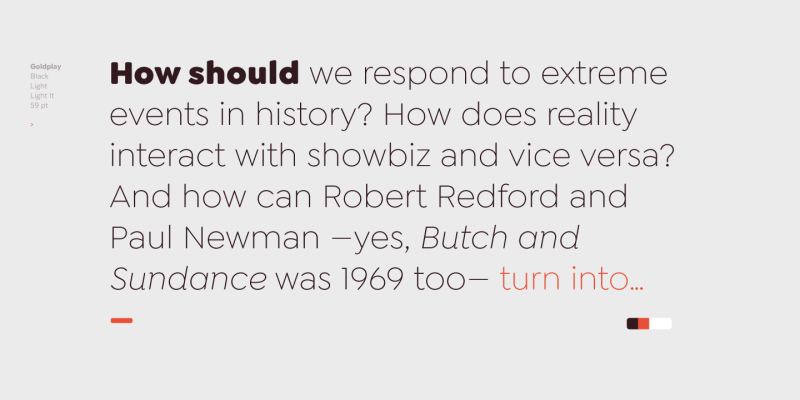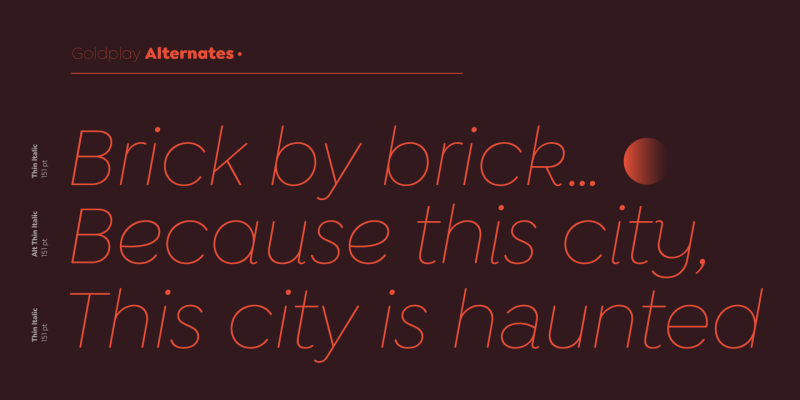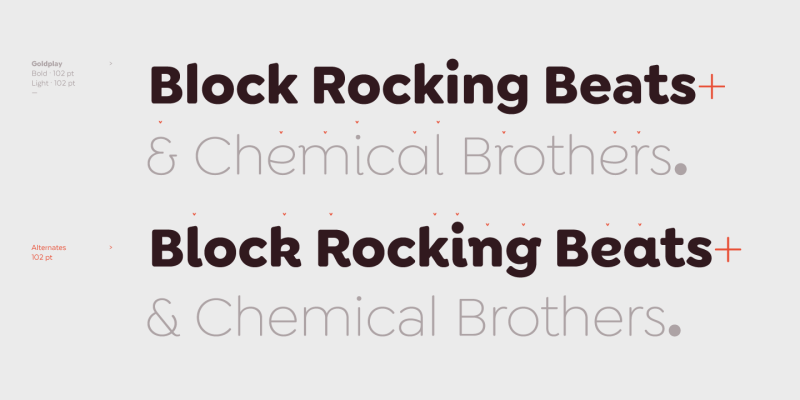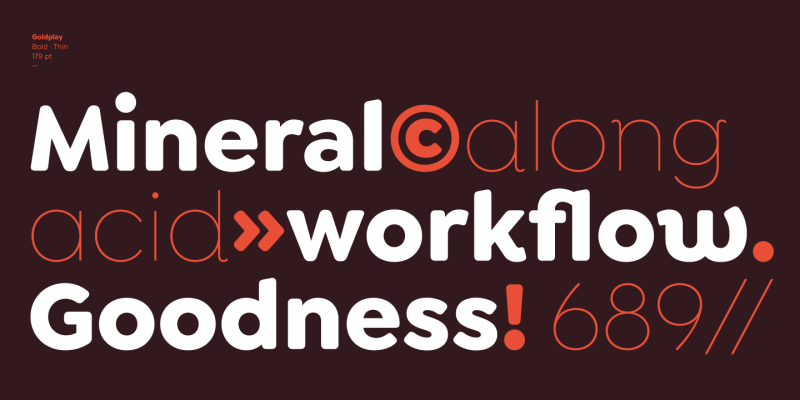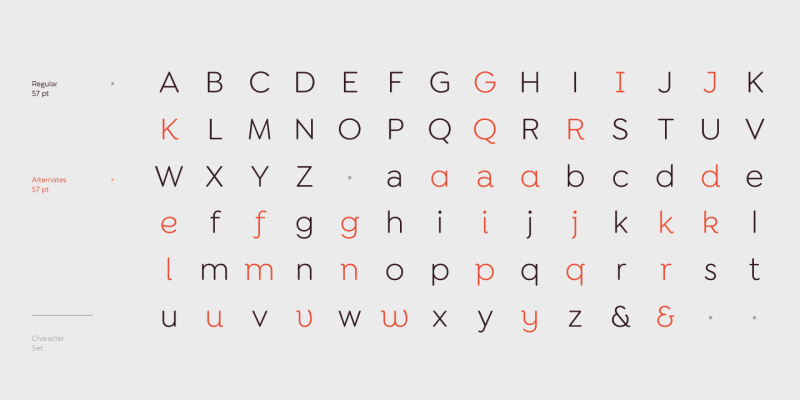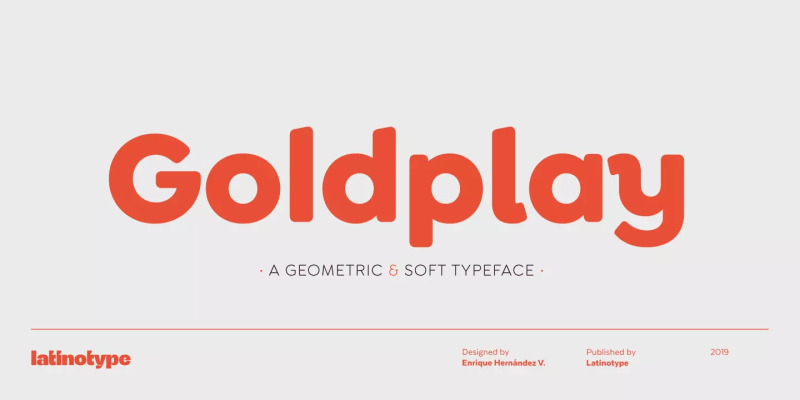
Goldplay Font Family
Goldplay is based on Isidora Sans design yet features rounded shapes. Its rounded, soft terminals give it a friendly and expressive look, and its modern and contemporary…
Character set · 540 glyphs
Goldplay is based on Isidora Sans design yet features rounded shapes. Its rounded, soft terminals give it a friendly and expressive look, and its modern and contemporary style as well as its classic proportions make it an excellent choice for headlines, logotypes, branding, books, magazines, motion graphics, and use on web and Tv. One of its key features is a large x-height which make it look elegant and classy.
Goldplay comes in 2 versions—each in 7 weights, from Thin to Black, and matching italics, resulting in a total of 28 fonts. The standard sans serif version—fresh, clean and contemporary—is a perfect choice for editorial and corporate design, headlines, books, magazines or any other piece of graphic design. The Alt semi-serif display version—more expressive and modern—is ideal for logotypes, branding, packaging, and use on web and Tv. Goldplay contains a set of 540 characters that support over 200 Latin-based languages.
Where Goldplay Font Family works best
Goldplay Font Family keeps its shape at 14 and 16 pixels, which is where interface text actually lives. Numbers and capitals stay distinguishable in tables.
Presentations are read at a distance; a clean sans with a strong bold is the safest hierarchy you can build in a hurry.
Simple letterforms survive angles, glare and movement, so Goldplay Font Family suits door signs, menus boards and exhibition panels.
What kind of work does Goldplay Font Family suit?
It sits in the Sans Serif Fonts group and reads as classic, contemporary, elegant, friendly. That makes it a candidate wherever those qualities help: headings, packaging, social graphics and brand work. Set it at the size you plan to use before deciding.